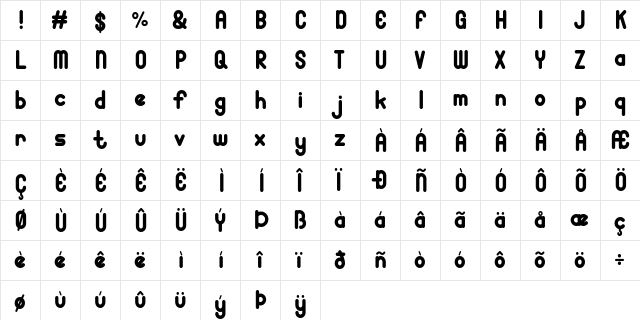
Yolissa Demo Regular Font Preview
Yolissa Demo Regular
Design Context for Yolissa Demo Typeface
Yolissa Demo is a composed and adaptable typeface that performs quietly and consistently across a wide range of design contexts.